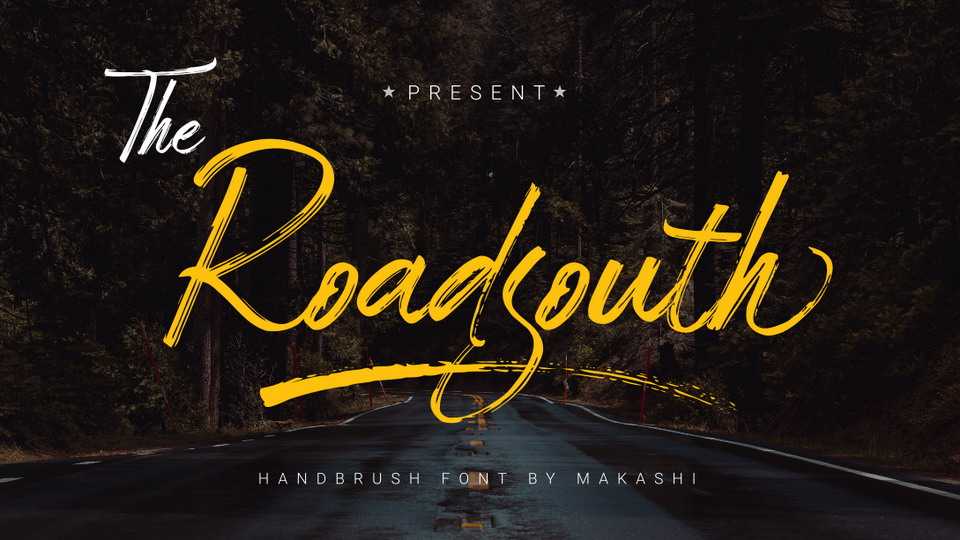
Download Roadsouth font, a stylish handwritten script with natural brush look. Roudsouth font is suitable for logos, labels, posters, apparel, social media and more.
Designer: Makashi